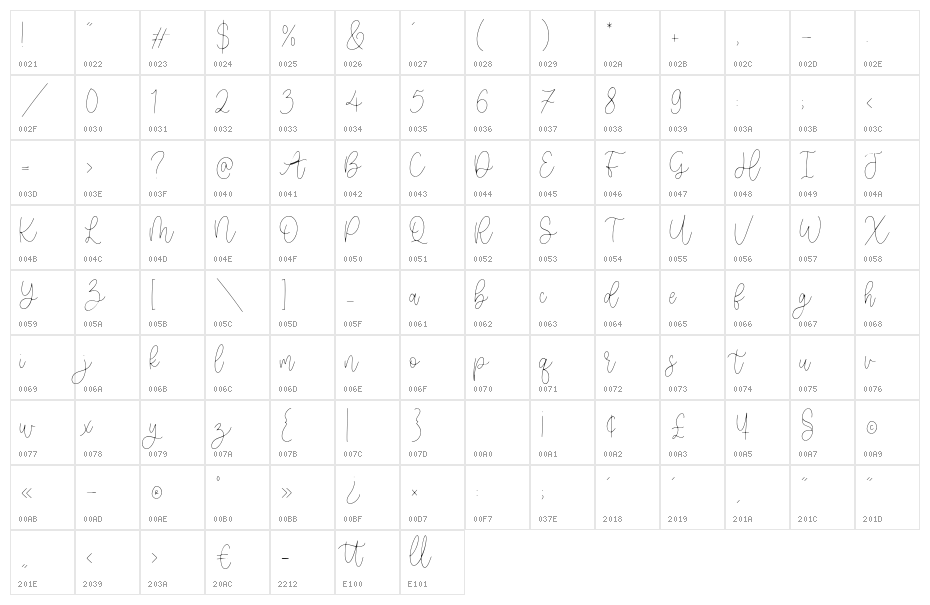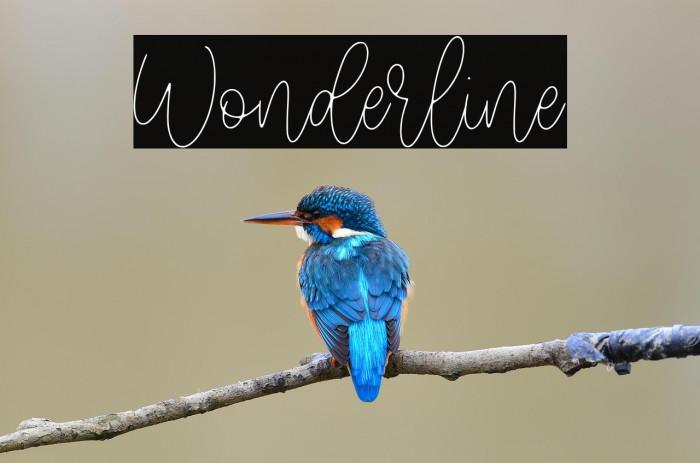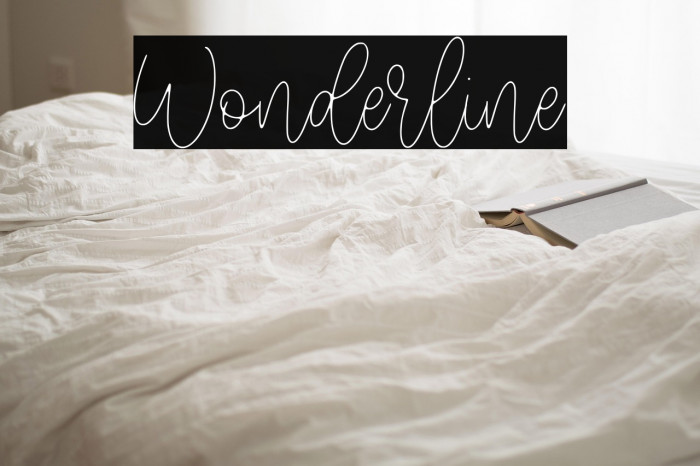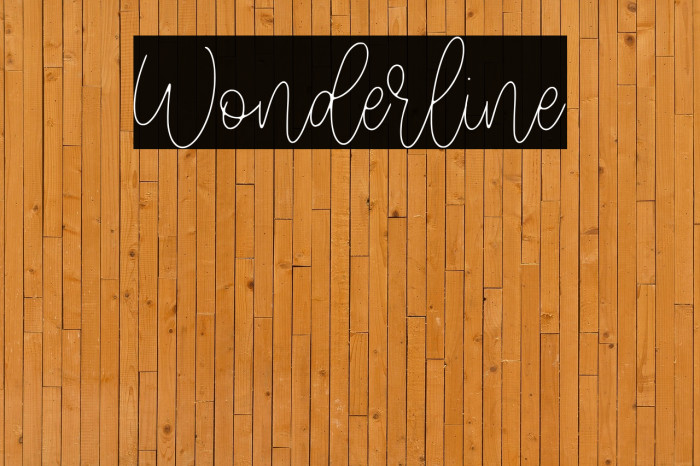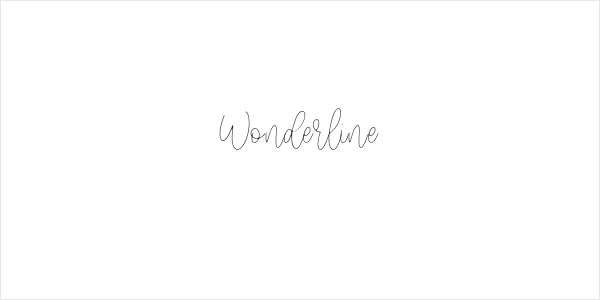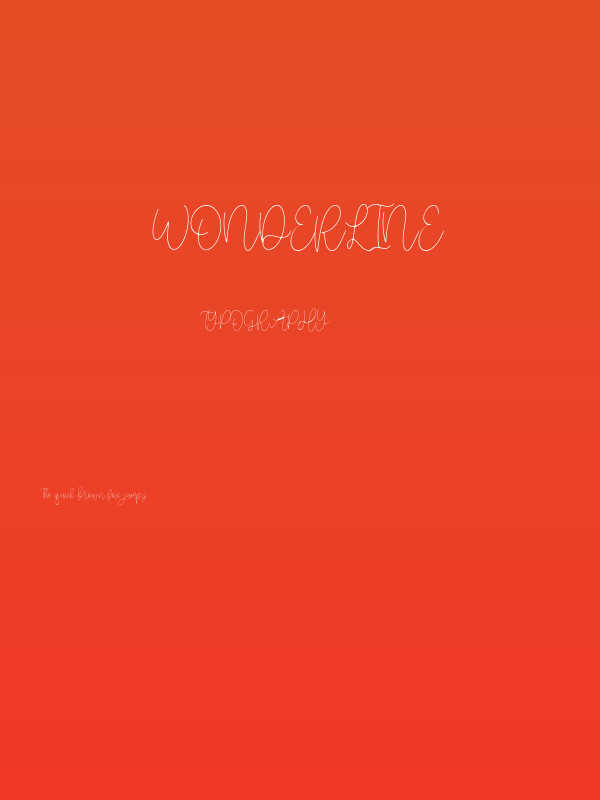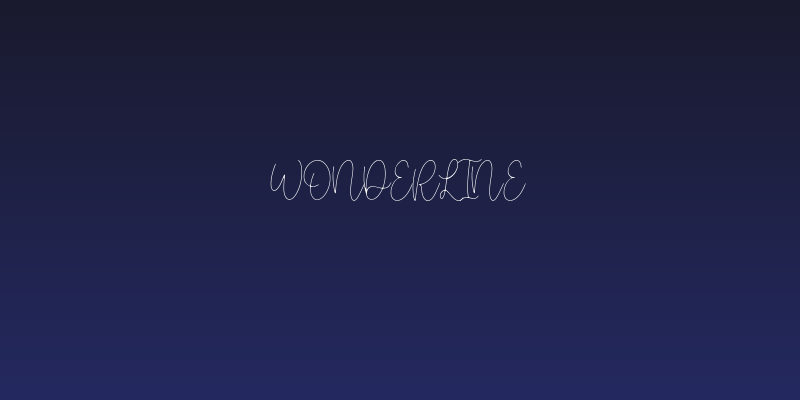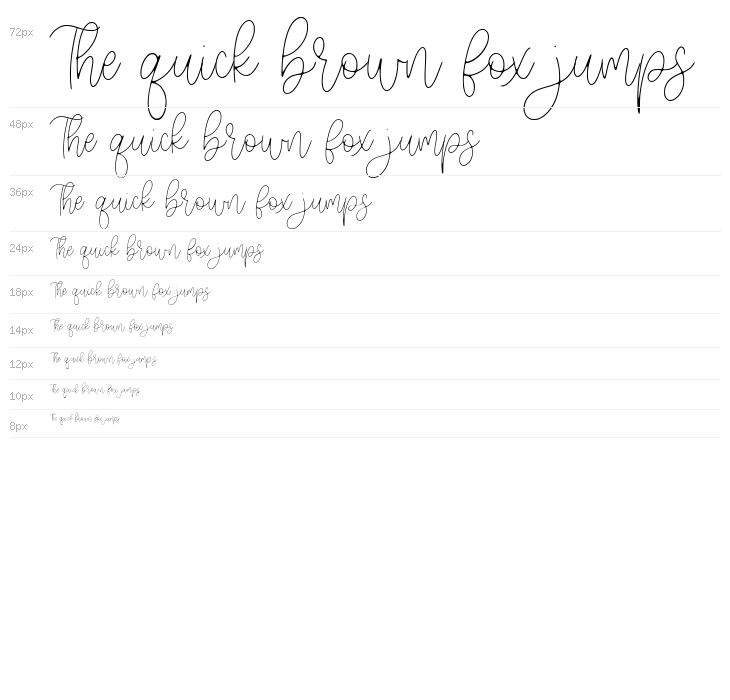
Wonderline Font
Wonderline Description
This font exudes a whimsical and elegant charm, characterized by its flowing, cursive script style. The letters are interconnected with smooth, sweeping strokes that give it a handwritten feel. The uppercase letters are tall and graceful, while the lowercase letters maintain a consistent flow, enhancing the overall fluidity of the design. The numbers and special characters are crafted with the same delicate touch, ensuring a cohesive look across all elements. The thin lines and airy spacing contribute to its light and airy appearance, making it ideal for projects that require a touch of sophistication and creativity.